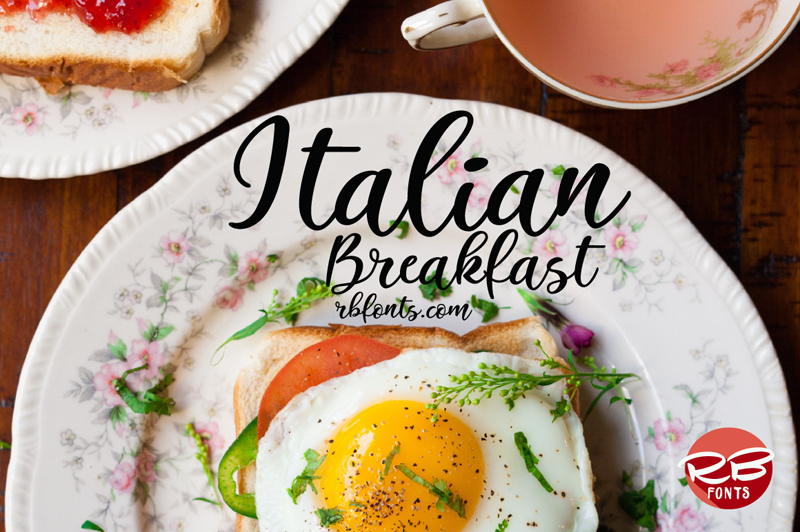
A handwritten, fun and happy modern calligraphy script font with carefully crafted, clean vectors. You can create beautiful hand-made typography with its bouncy, organic flow. Italian Breakfast is perfect for all your creative projects wether it be * indie logos, * printed quotes, * invitations, * greeting cards, * Instagram posts, * products, packaging, * blog headers etc. Happy creating and have fun! Fonts are provided in TTF & OTF formats. I recommend installing the TTF files, and the OTF only if necessary. There is no difference between these two unless for printing ttf is better. You may not - sell these fonts or claim them as your own. - edit or rename these fonts. - redistribute these fonts. http://rbfonts.com rbfonts@yahoo.com |